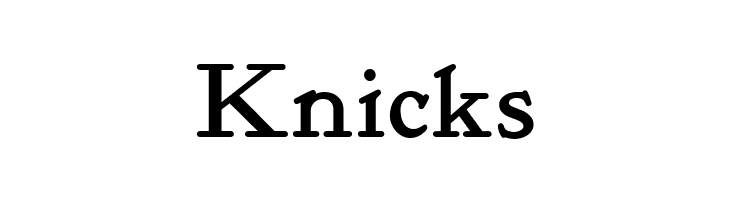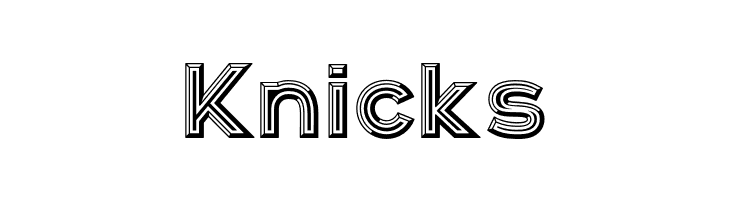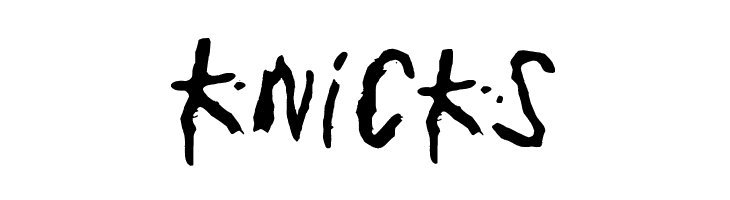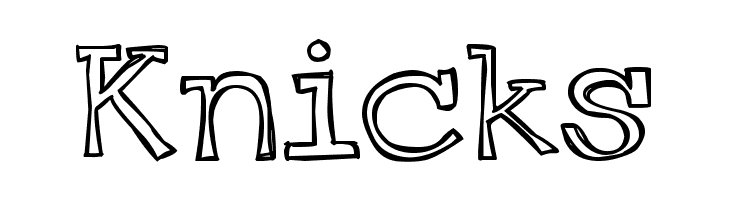
A geometric, futuristic font with sharp angles and consistent thickness.
A geometric, angular font with a modern and vintage blend, featuring bold and structured letterforms.
A modern, geometric font with a blend of bold and script elements.
A tall, narrow, and modern font with a sleek and sophisticated style.
A bold, condensed font with a modern and impactful style.
A bold, condensed font with strong, uniform strokes for impactful headlines.
A bold, retro-style font with a three-dimensional effect and thick outlines.
A bold, three-dimensional font with a strong, playful presence.
A casual, handwritten font with a playful and informal style.
A playful, handwritten font with bold strokes and a casual, dynamic style.
A bold, decorative font with sharp serifs and a medieval flair.
A bold, geometric font with a modern and playful style.
A bold, dripping font perfect for horror and gothic themes.
A decorative font with whimsical animal illustrations for each character.
A dynamic, calligraphic font with sharp, angular strokes and expressive flourishes.
A bold, distressed font with a grunge-like, hand-drawn appearance.
A bold, playful font with a three-dimensional, hand-drawn style and a grungy texture.
A traditional Gothic script with intricate, ornate letterforms and dramatic strokes.
A bold, Gothic-style font with intricate flourishes and high contrast.
A classic, calligraphic font with elegant serifs and medium contrast.
A bold, wavy font with a playful, psychedelic style.
A vintage, ornate font with decorative serifs and intricate details.
An ornate, Victorian-inspired decorative font with intricate flourishes.
A bold, fluid font with a psychedelic, retro style.
A bold, geometric font with a three-dimensional outline style.